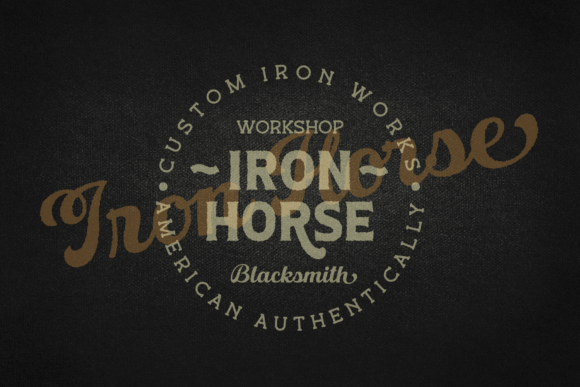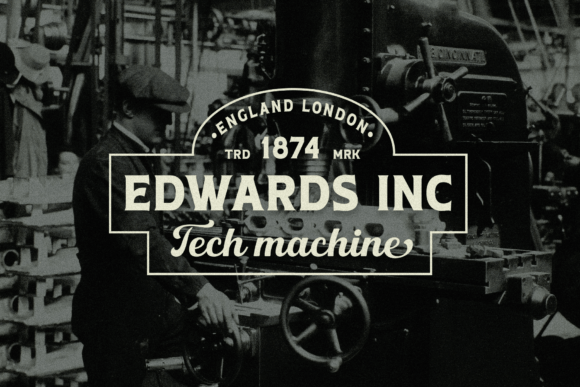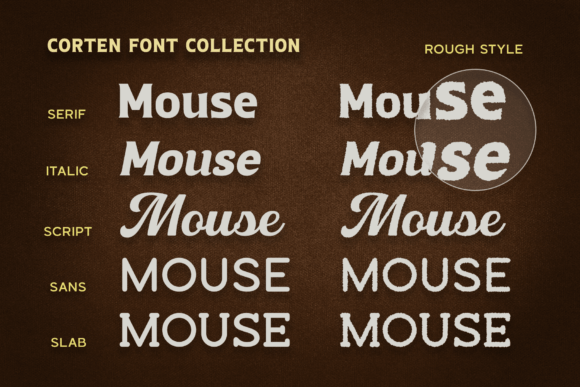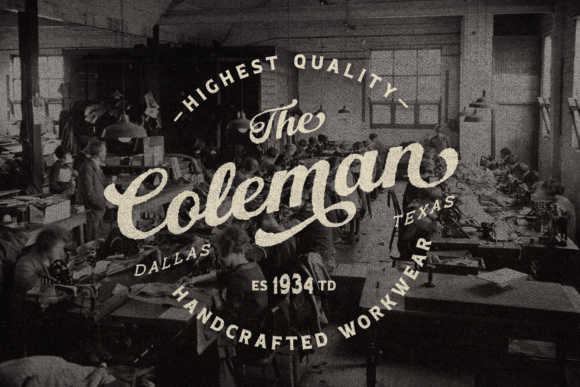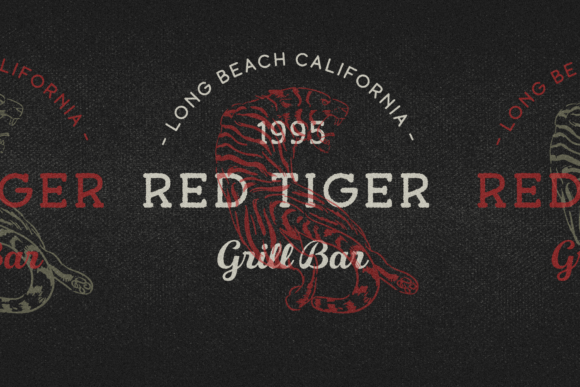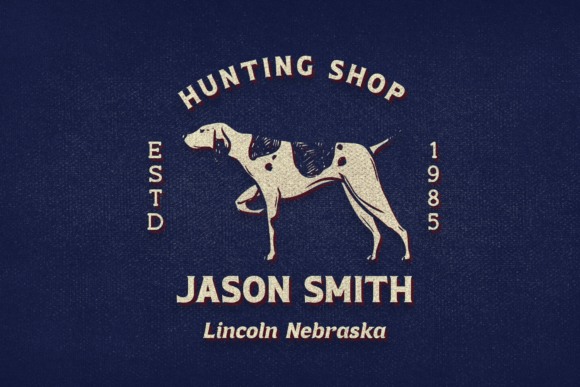
The Perfect Blend of Vintage Charm and Modern Style
As a designer, have you ever stared at a blank page, waiting for that elusive spark of creativity to strike? It’s a moment we’ve all been in – the one where the words start flowing, and the ideas begin to take shape. And then, it hits you: the perfect font to bring your vision to life. For many of us, that font is the Corten Font, a retro and striking typeface that adds a touch of vintage charm to any design project.
The Corten Font is a game-changer for designers looking to add a unique twist to their work. With its PUA encoded features, you can easily access all the keen glyphs and ligatures that will take your design to the next level. Whether you’re working on a branding project, a website, or a social media campaign, the Corten Font is a valuable asset that will help you stand out from the crowd.
- Font Size and Style: The font comes in multiple weights, ranging from Light to Bold, with a total of 10 styles to choose from. Each style has its own unique characteristics and feels.
- Resolution and Scalability: Corten Font is designed to be highly scalable, making it suitable for use in various resolutions, from small mobile screens to large billboards and signs.
- Unique Characteristics: The Corten Font is inspired by the weathered steel look of Corten steel, giving it a unique and rugged appearance that is perfect for industrial, urban, and outdoor designs.
Corten Font Review
Corten Font is a unique and interesting choice for designers looking for something different. ✨ One of the things that stands out is its distressed, weathered look, which can be perfect for adding a sense of ruggedness or nostalgia to a design. The font also comes in a range of weights and styles, giving designers plenty of options for customization.
However, there are some limitations to consider. ⚠️ For one, the font can be difficult to read at smaller sizes, which may limit its use in certain contexts. Additionally, the distressed look can be overwhelming or cluttered if not used thoughtfully, so designers will need to be careful in their application.
Here are some key features to consider:
- Unique, distressed look
- Range of weights and styles available
- Difficult to read at smaller sizes
- Can be overwhelming or cluttered if not used thoughtfully
Overall, Corten Font is a great choice for designers who want to add some edge or personality to their designs. With careful use and consideration of its limitations, it can be a powerful tool in a designer’s toolkit.
Tips for Getting the Most Out of Corten Font
Here are some tips for getting the most out of Corten Font:
– Use it sparingly to create a bold and eye-catching effect.
– Pair it with other fonts to create a unique and interesting design.
– Experiment with different font sizes and styles to find the perfect look.
Corten Font is commonly used in:
– Architectural designs to create a weathered and industrial look.
– Branding and marketing materials to create a unique and eye-catching effect.
– Editorial and publishing designs to add a touch of sophistication and elegance.